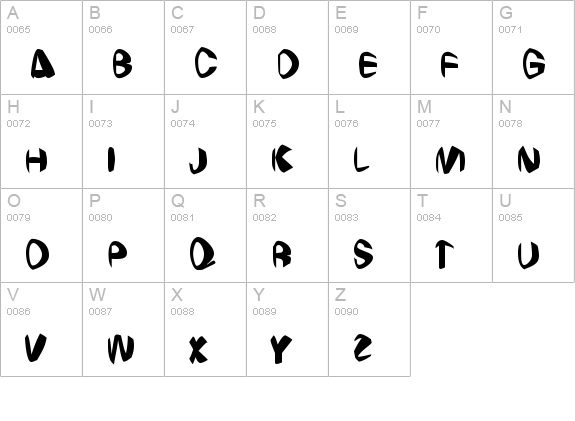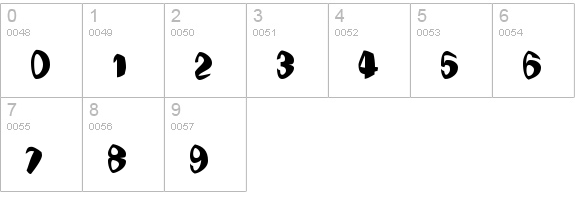
WeirdoWarp Regular Font Details
WeirdoWarp Regular is the standard, neutral variant in the WeirdoWarp typeface family \xE2\x80\x94 well suited to general body text, paragraphs, and standard typographic work.
WeirdoWarp Regular font is an eccentric and unique typeface that will add a touch of quirkiness to your design projects. Its playful and distorted letterforms create a visually engaging and captivating look, making it perfect for eye-catching headlines, posters, and logos. This font's distinctively warped and irregular shapes give it a one-of-a-kind appeal, setting it apart from traditional typefaces. Its unconventional design allows for the creation of bold and unconventional designs that will surely leave a lasting impression. WeirdoWarp Regular font is not only visually striking but also highly versatile. Whether you're working on a retro-inspired project, a futuristic design, or simply want to add a touch of whimsy to your work, this font will deliver. Its ability to adapt to various design styles makes it a valuable addition to any designer's toolkit. And the best part? WeirdoWarp Regular font is available for free download at FontsMarket.com. That's right, you can freely access this extraordinary font and start incorporating its peculiar charm into your projects immediately. So why wait? Embrace the weirdness and let your creativity run wild with WeirdoWarp Regular font.